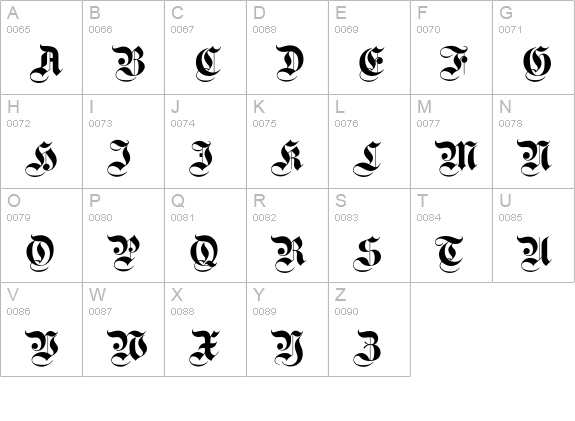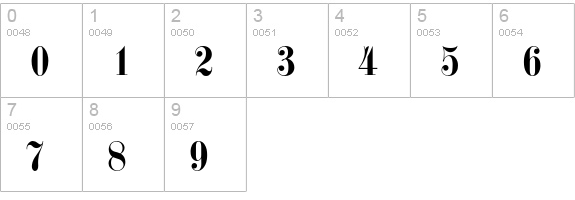
Fette Kanzlei Font Details
Fette Kanzlei is a classic and elegant serif font that exudes sophistication and professionalism. With its bold strokes and traditional design, this typeface is perfect for creating timeless and refined designs. The Fette Kanzlei font is versatile and can be used for a wide range of projects, from branding to editorial design. What sets Fette Kanzlei apart is that it is not only stylish and visually appealing but also free to download. That's right, you can get your hands on this high-quality font at absolutely no cost. Simply head over to FontsMarket.com to access this beautiful typeface and elevate your design projects with its timeless charm and versatility.